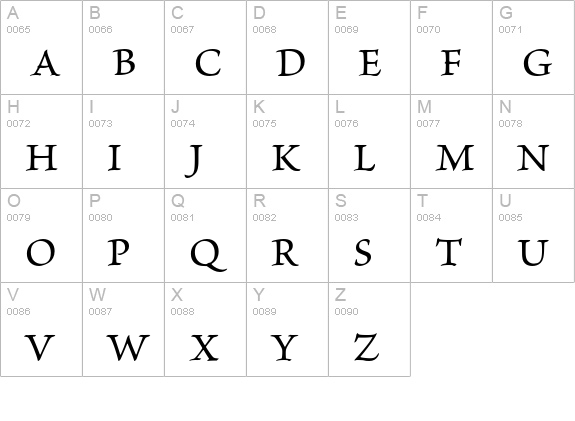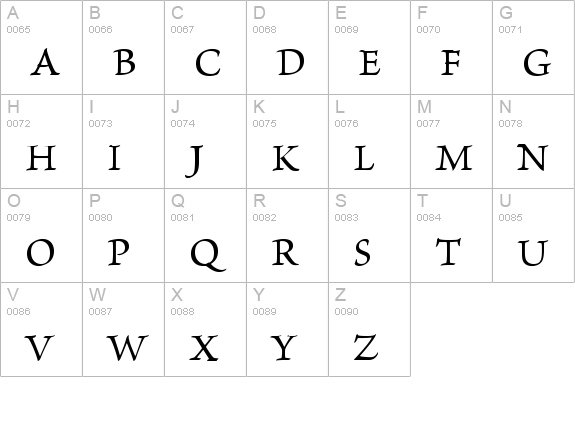
Brioso Pro Caption is a sophisticated and elegant font that exudes a sense of refinement and professionalism. Its sleek and modern design makes it perfect for captions, titles, and headings in a wide range of design projects. With its clean lines and versatile style, Brioso Pro Caption adds a touch of class to any text it graces. The best part? Brioso Pro Caption is available for free download at FontsMarket.com. This means that you can easily access this high-quality font without breaking the bank. Whether you are working on a print project, website design, or any other creative endeavor, Brioso Pro Caption is sure to elevate your work with its timeless appeal. Don't miss out on the opportunity to enhance your designs with the beauty and sophistication of Brioso Pro Caption. Download it for free today and see the difference it can make in your projects.